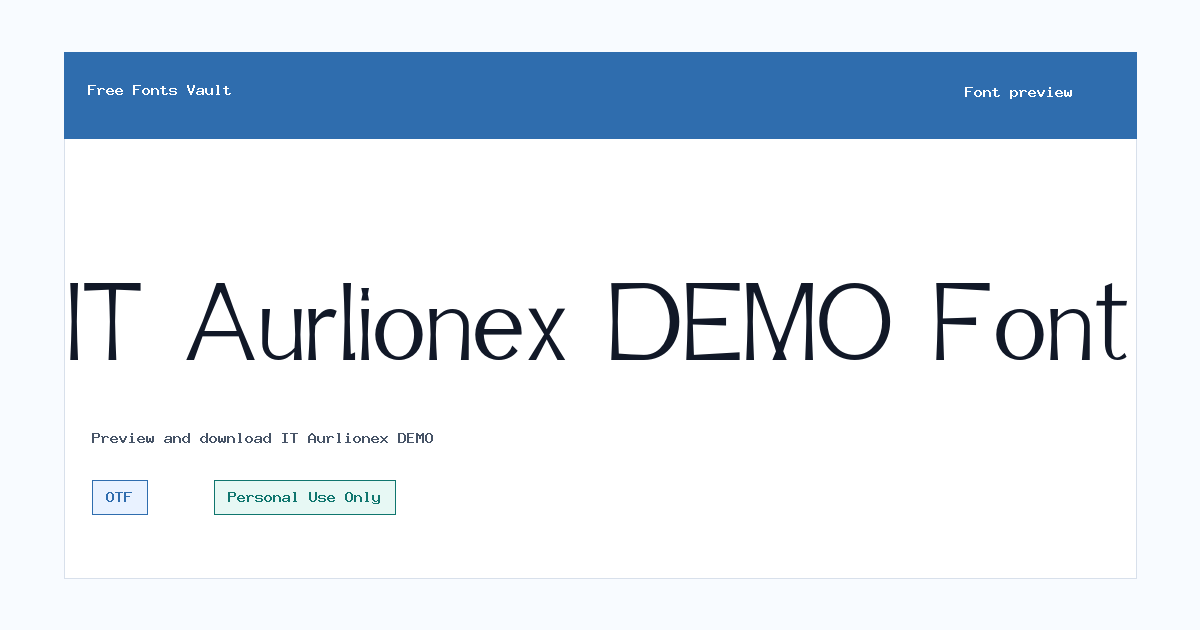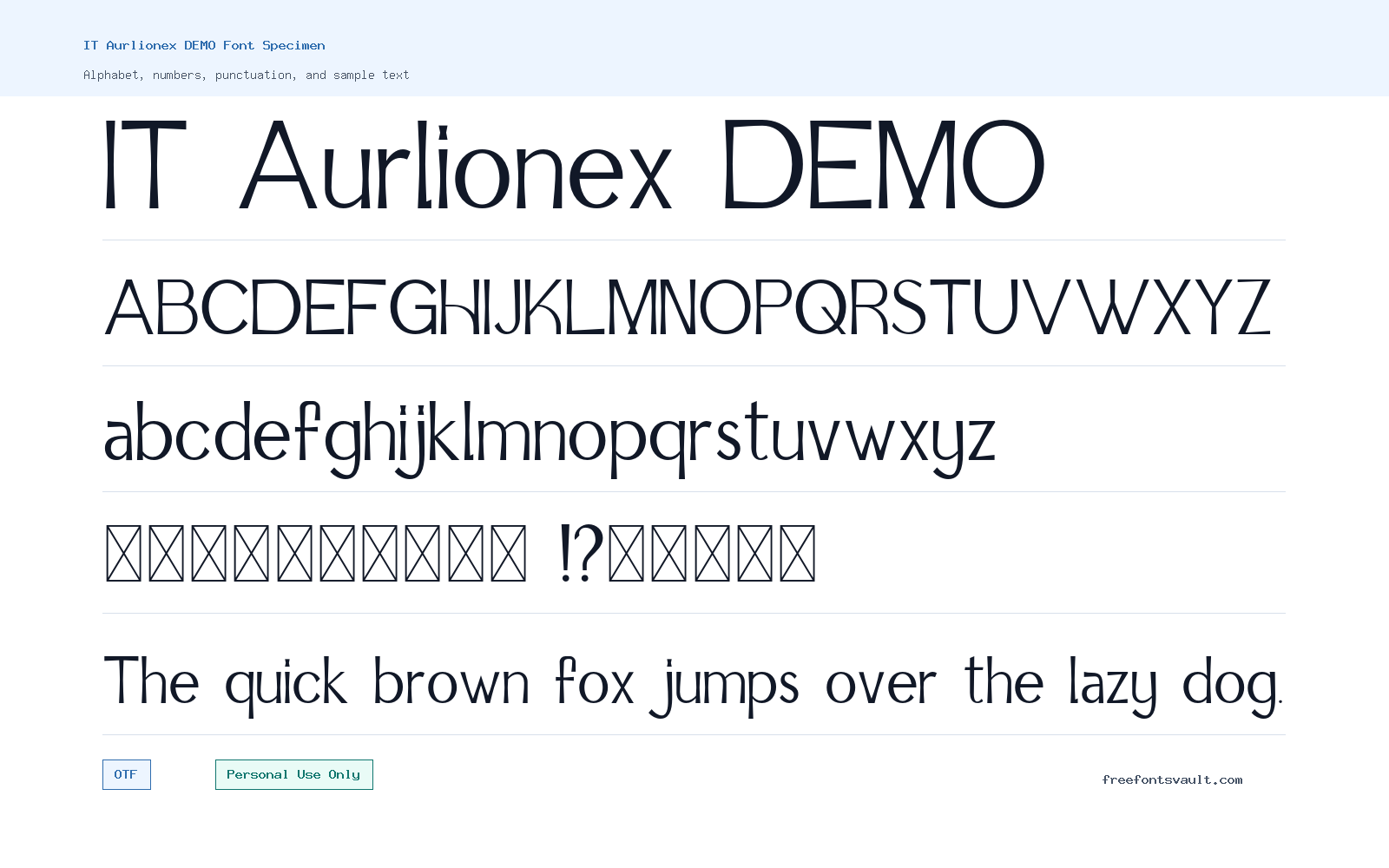
IT Aurlionex DEMO
IT Aurlionex DEMO font.
IT Aurlionex DEMO is a display sans serif font family from Indotype Foundry. It is meant for personal projects only, so it works best as a trial font for testing headlines, logo ideas, posters, and layout concepts before buying the right license for client or business use.
About IT Aurlionex DEMO Font
IT Aurlionex DEMO has the practical shape of a sans serif display face: clean enough for short reading, but more suitable for visual impact than long body text. The demo download contains Regular and Bold OTF styles, giving you a basic weight range for testing hierarchy in titles, banners, social graphics, and presentation mockups. Use the Regular style when you want a lighter headline or a clean subtitle, and switch to Bold when the text needs more presence on a poster, cover, or logo draft.
Because this is a demo family, treat it as a preview tool rather than a finished commercial asset. It is useful when you want to see how the letterforms behave with your own wording, brand name, or headline length. Try it with uppercase words, mixed-case titles, numbers, and punctuation before committing to a design direction. A display sans serif can look strong in short phrases, but it may feel too assertive or too spaced out in paragraph text, so test it at several sizes before using it in a full layout.
For logo work, IT Aurlionex DEMO can help you explore a modern sans serif direction without building lettering from scratch. Keep the test practical: check whether the name still reads clearly at small sizes, whether similar letters are easy to tell apart, and whether the Bold weight becomes too heavy when used in all caps. If the logo or brand mark will be used for a business, product, channel, shop, app, packaging, or promotion, the personal-use demo license is not enough.
For posters and web mockups, use the font where the reader only needs to scan a few words at a time: hero titles, section headers, event-style layouts, thumbnails, or announcement graphics. Pair it with a calmer text face for descriptions, captions, menus, and article copy. A neutral serif, a humanist sans, or a simple system sans can help the layout breathe while IT Aurlionex DEMO handles the headline role. Avoid pairing it with another loud display font unless the design is intentionally experimental.
- Display sans serif style suited to short, high-impact text rather than long paragraphs.
- Regular and Bold OTF styles support simple headline hierarchy in mockups.
- Useful for testing logo directions, posters, thumbnails, covers, and web hero layouts.
- Personal logo concept testing
- Poster headlines and title graphics
- Web hero mockups
- Social media draft designs
- Presentation covers
- Typography experiments
- Brand direction studies before licensing
- Short display text where readability can be checked at large sizes
What should I pair with IT Aurlionex DEMO?
Pair it with a quieter font for body text, captions, and navigation. A neutral sans serif or simple serif will keep the headline from competing with the rest of the layout.